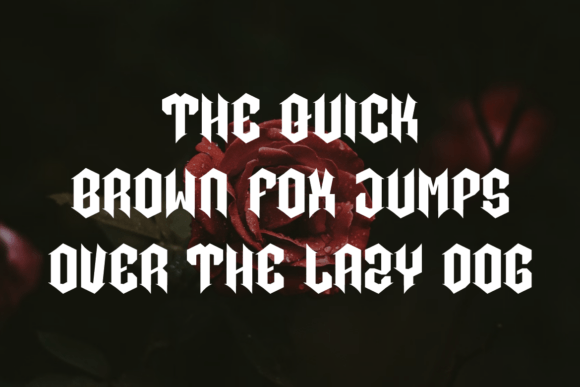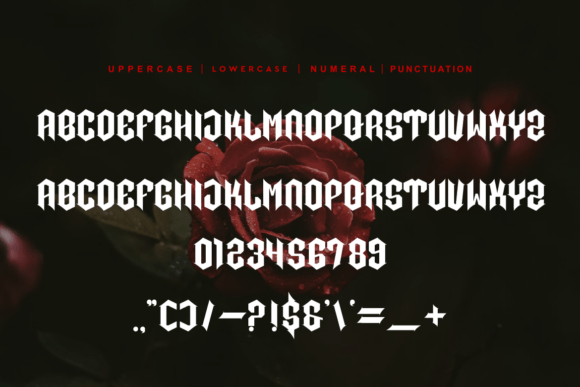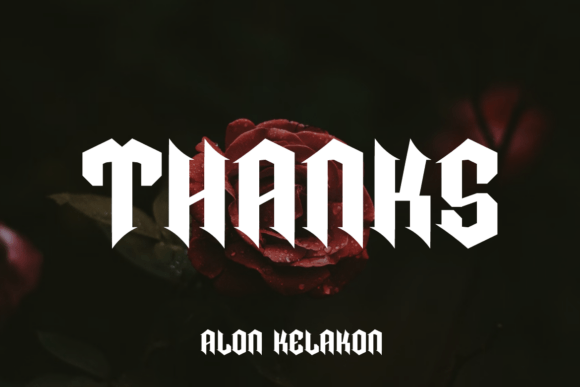
Introduction to Lemorand Font
Experience a sense of creative freedom with our distinctive font, meticulously crafted for your design purposes.
Whether youโre planning to utilize it for dynamic movie scenes, captivating posters, or thrilling movie titles, this font is ready to charm your audience Itโs also perfectly suited to stylize album covers, logos, and a myriad of other design projects.
Key Features of Lemorand Font
Why Choose Lemorand Font?
Lemorand Font offers exceptional quality and versatility, making it a valuable addition to your design toolkit. Whether you’re creating for personal projects or commercial use, Lemorand Font delivers professional results.